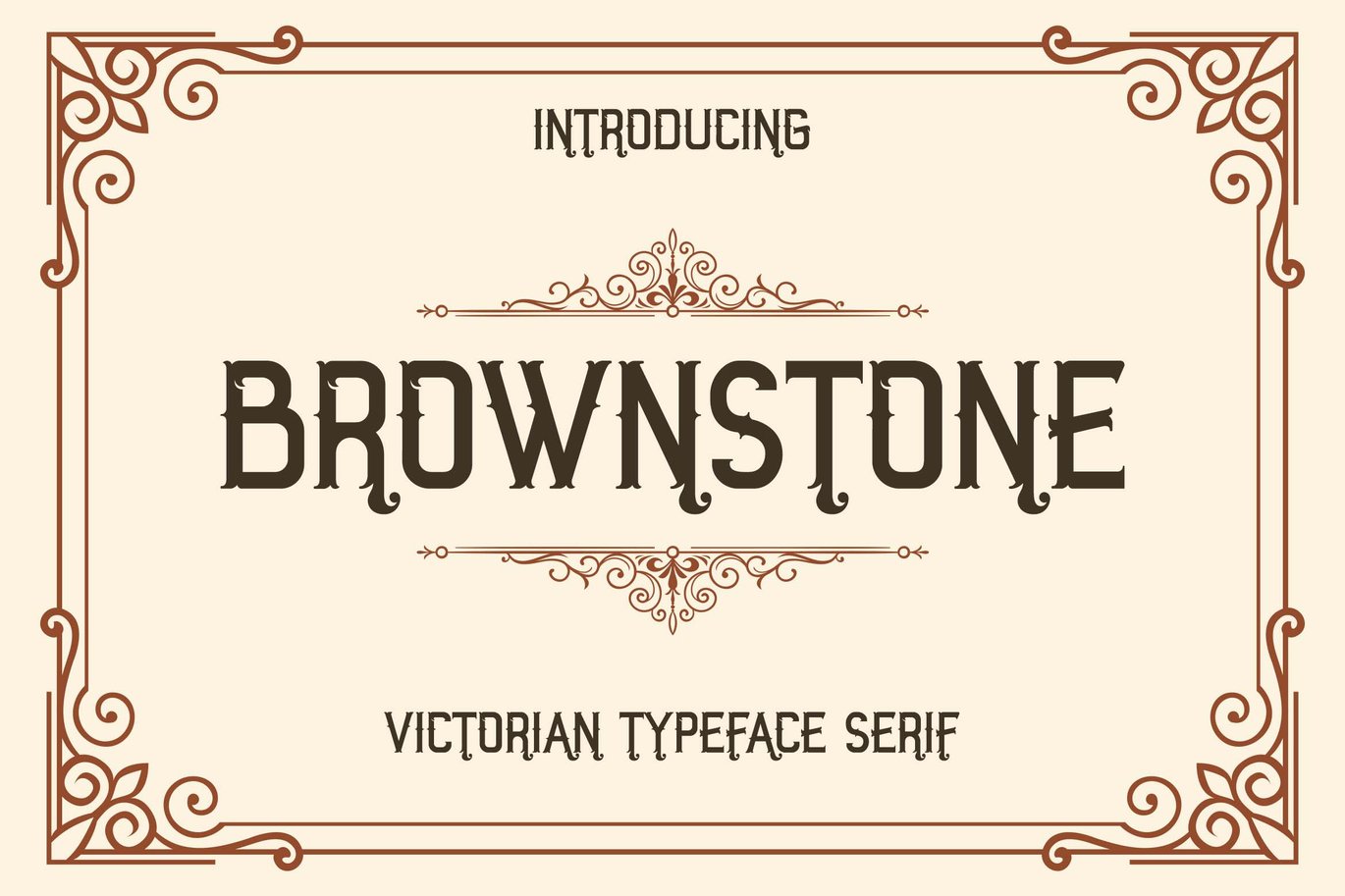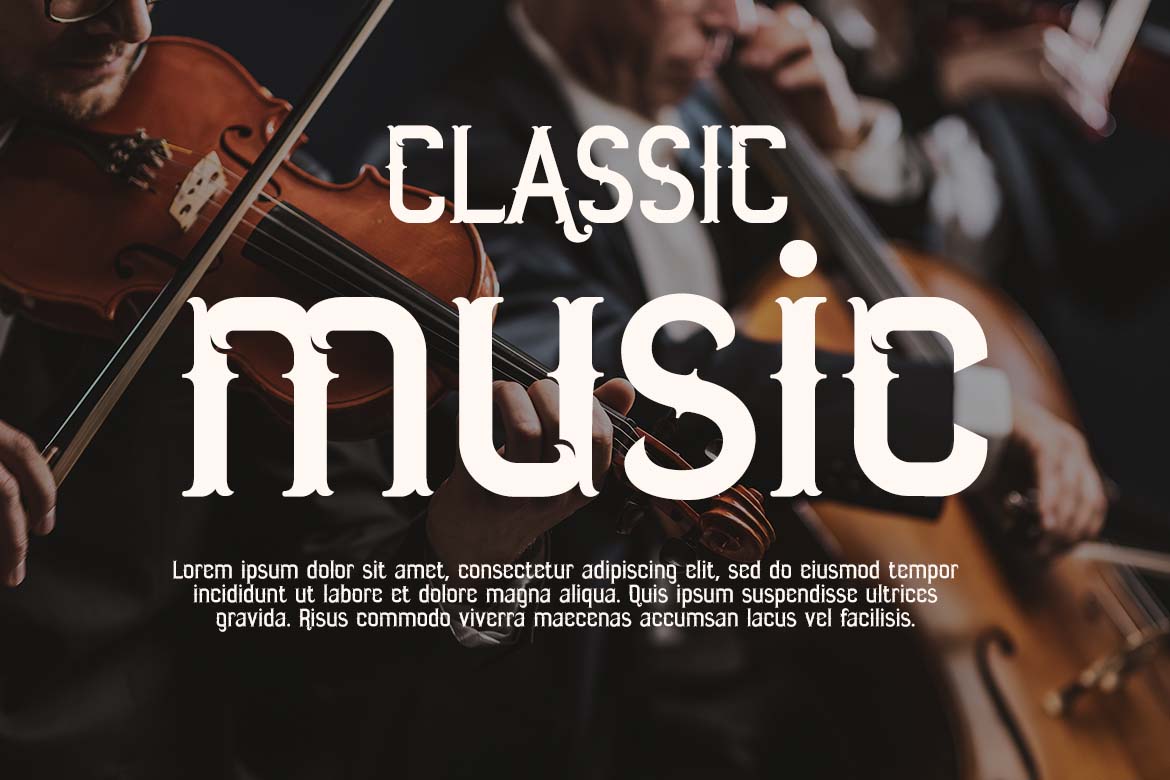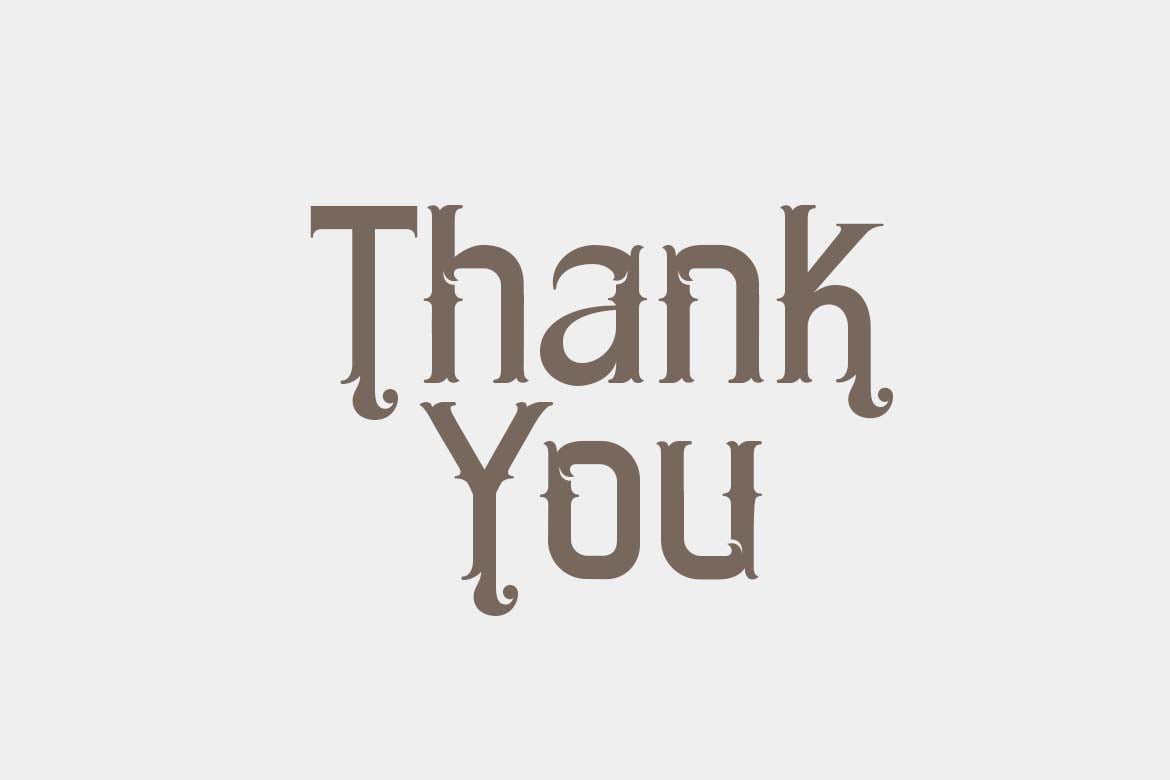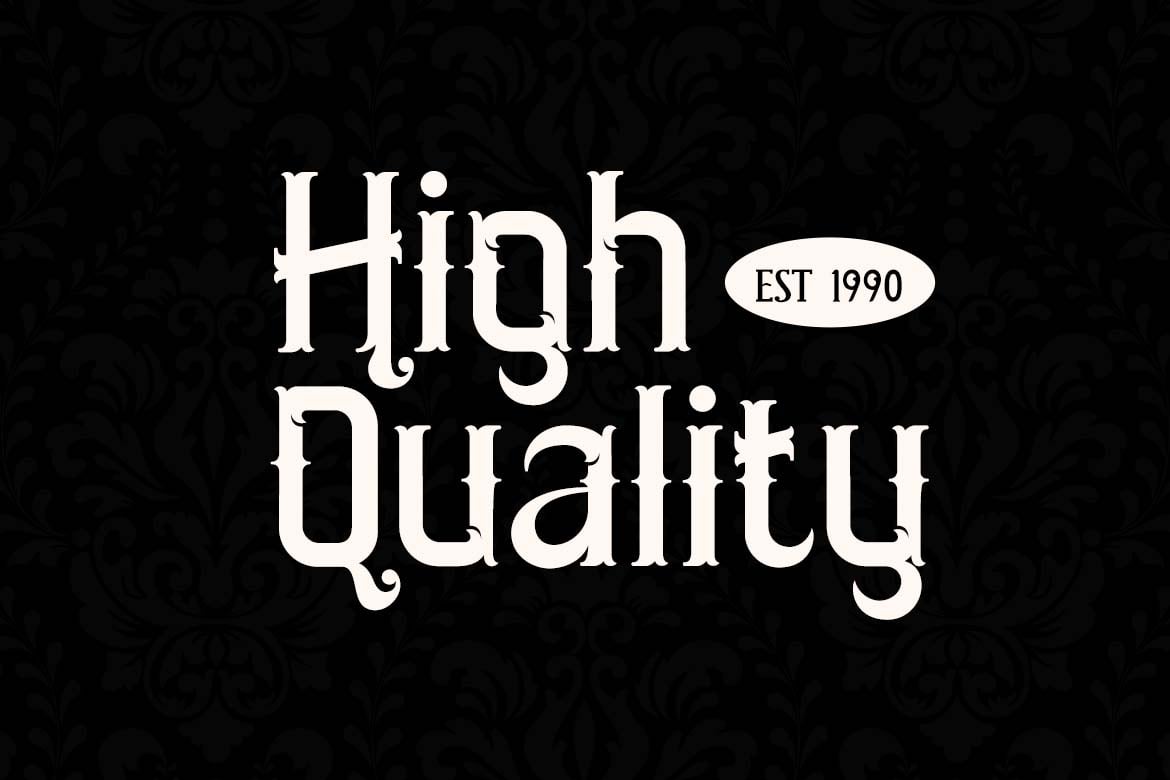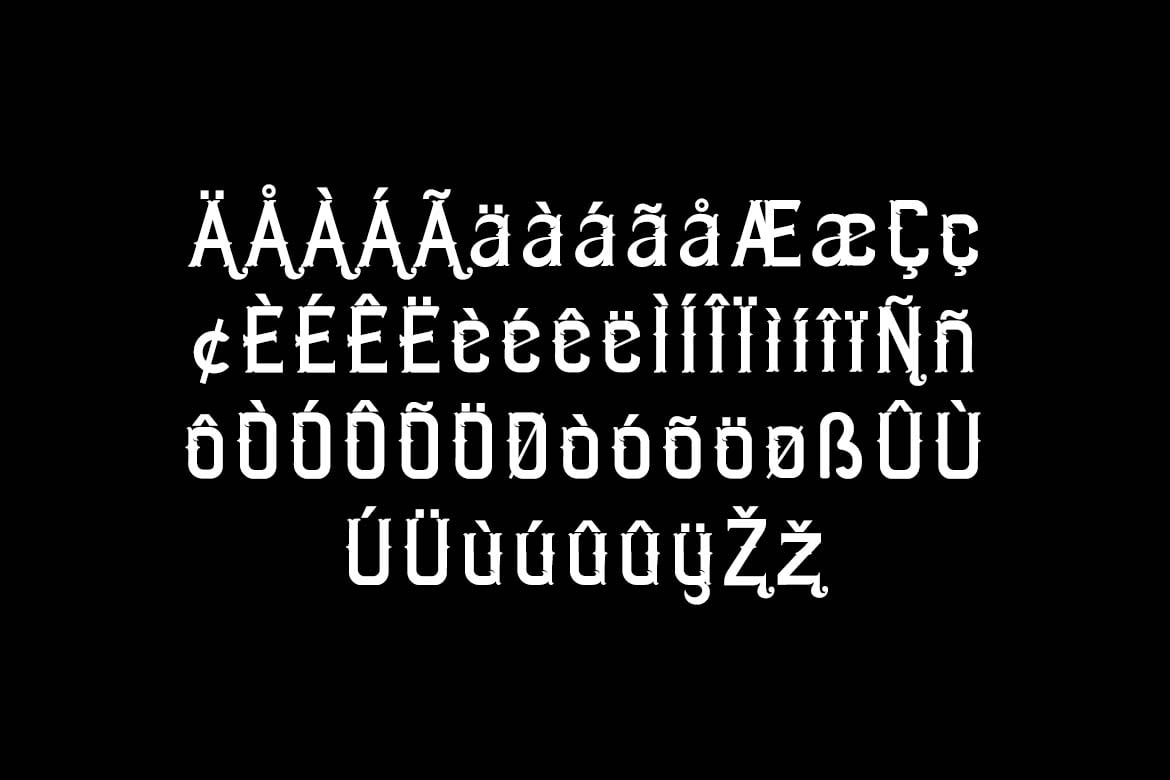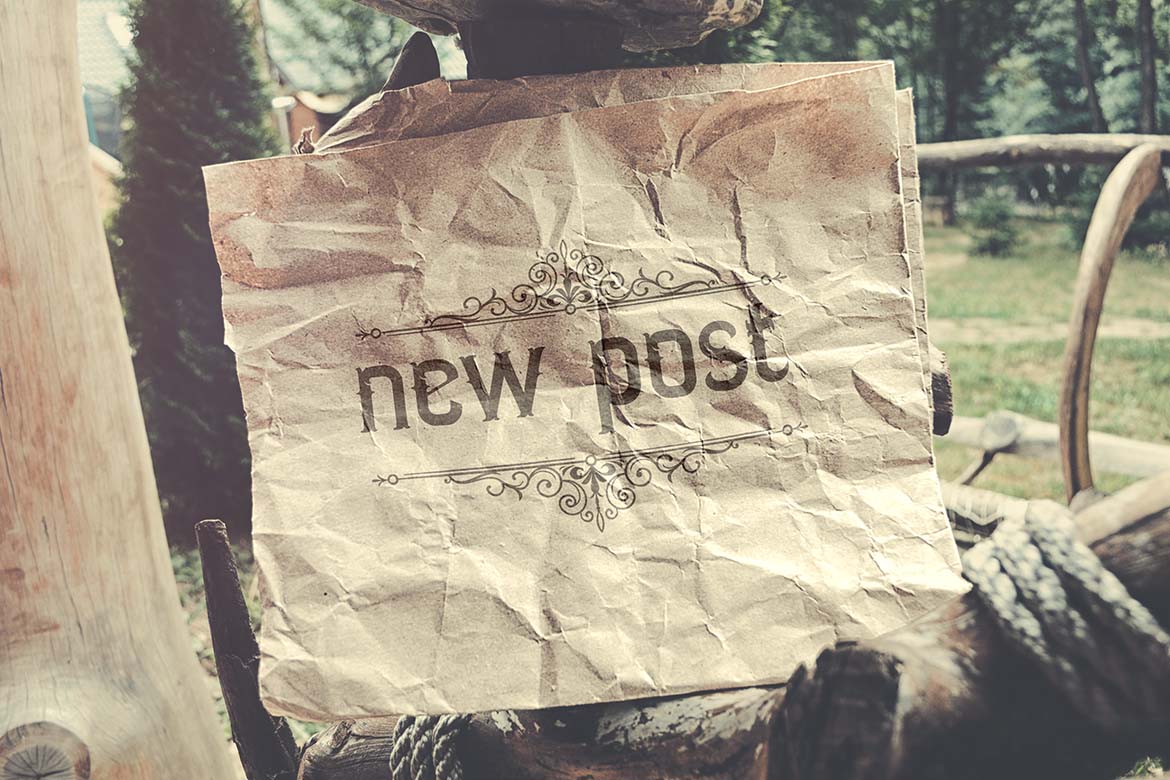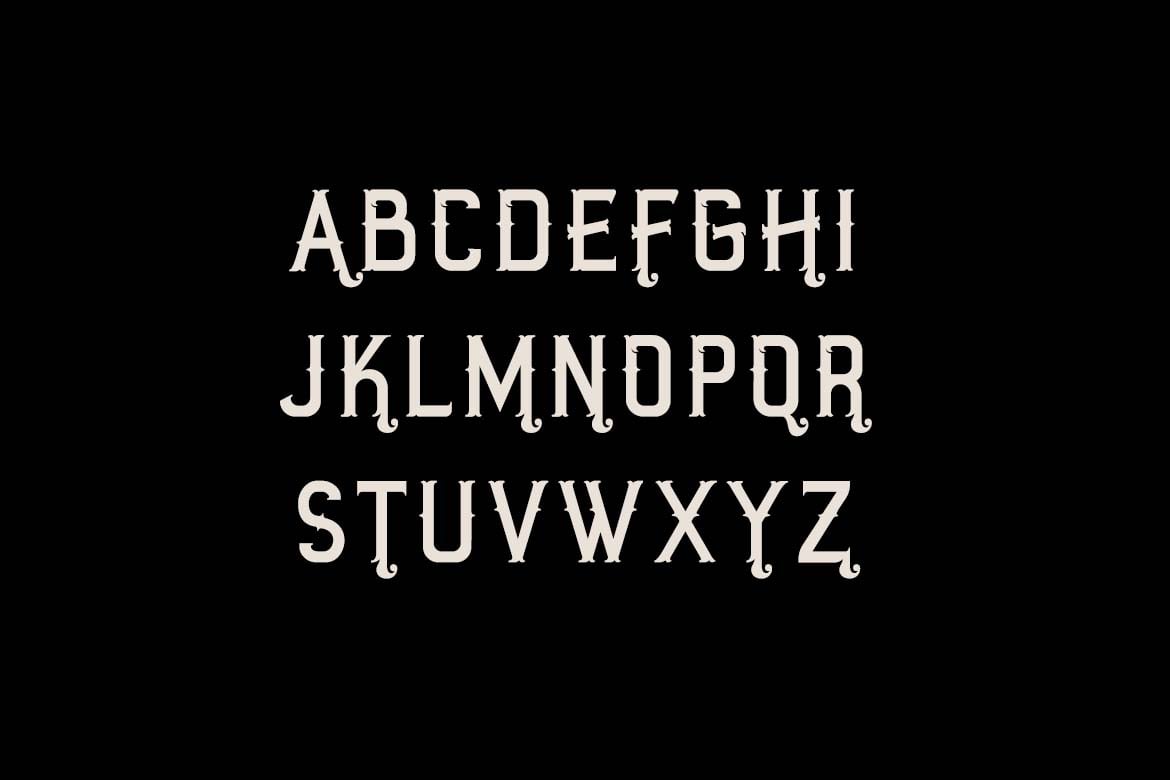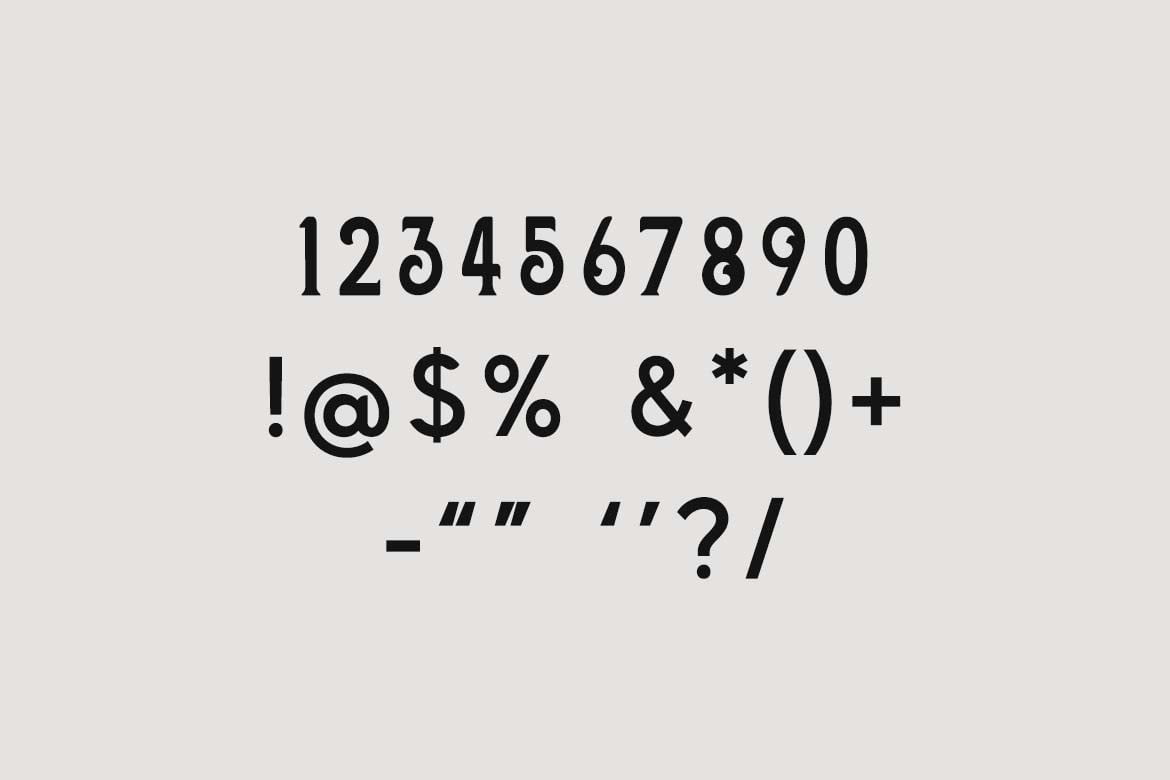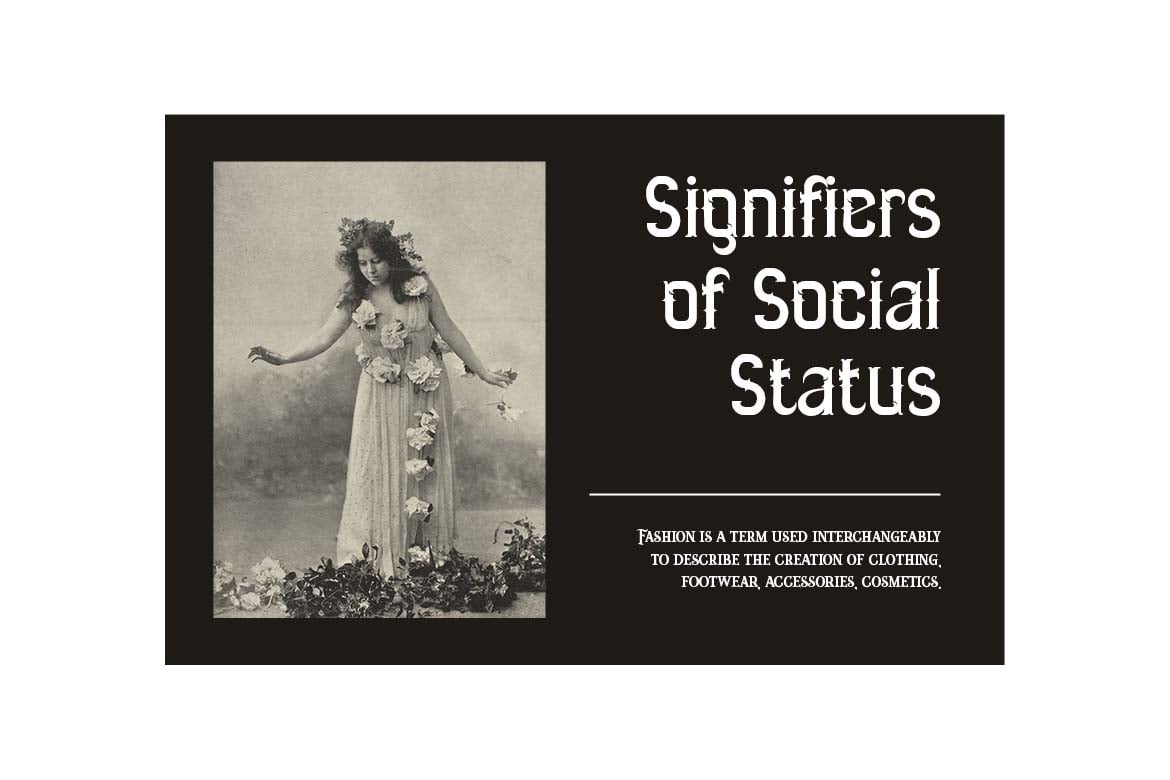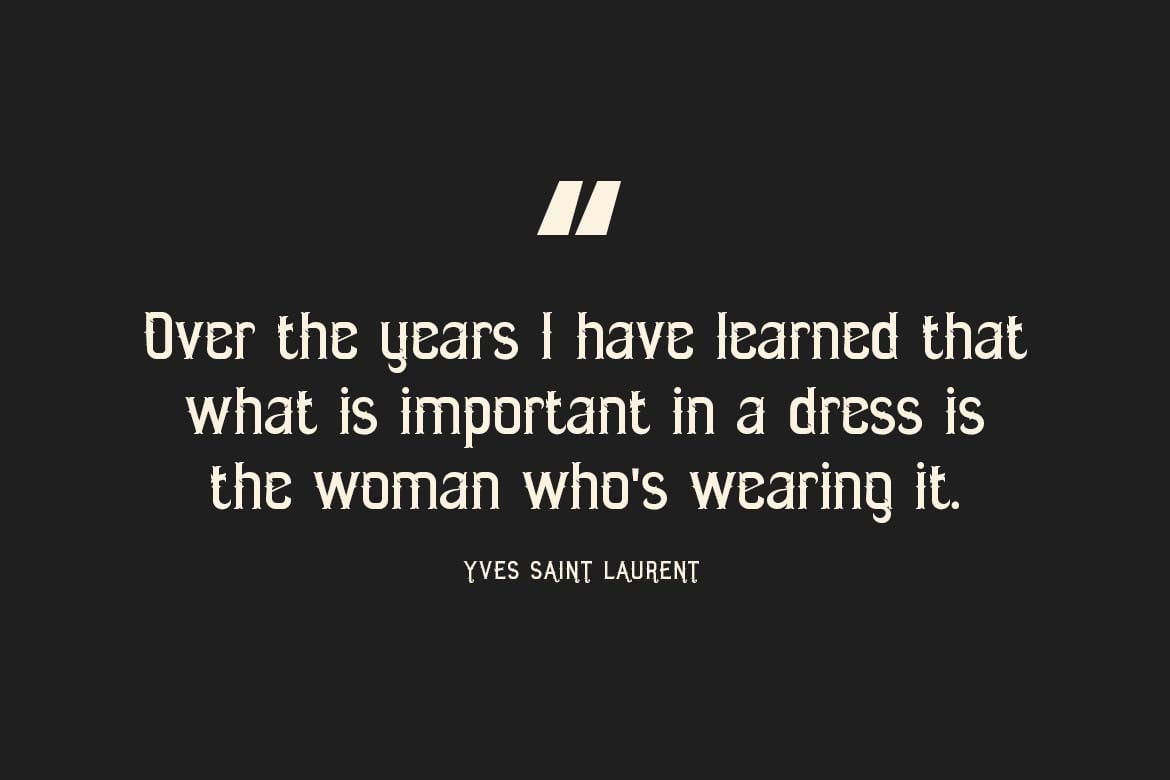
Brownstone Victorian Serif Font
Introducing our new product the name is Brownstone Victorian Serif Font. Brownstone Victorian Serif Font that feels beautiful classy, elegant, and modern. This font is ideally suited for a wide variety of projects, such as signature, stationery, logo, wedding, typography quotes, magazine or book covers, website headers, clothing, branding, packaging design, and more. Also, fashion-related branding or editorial design displays both masculine and feminine qualities.